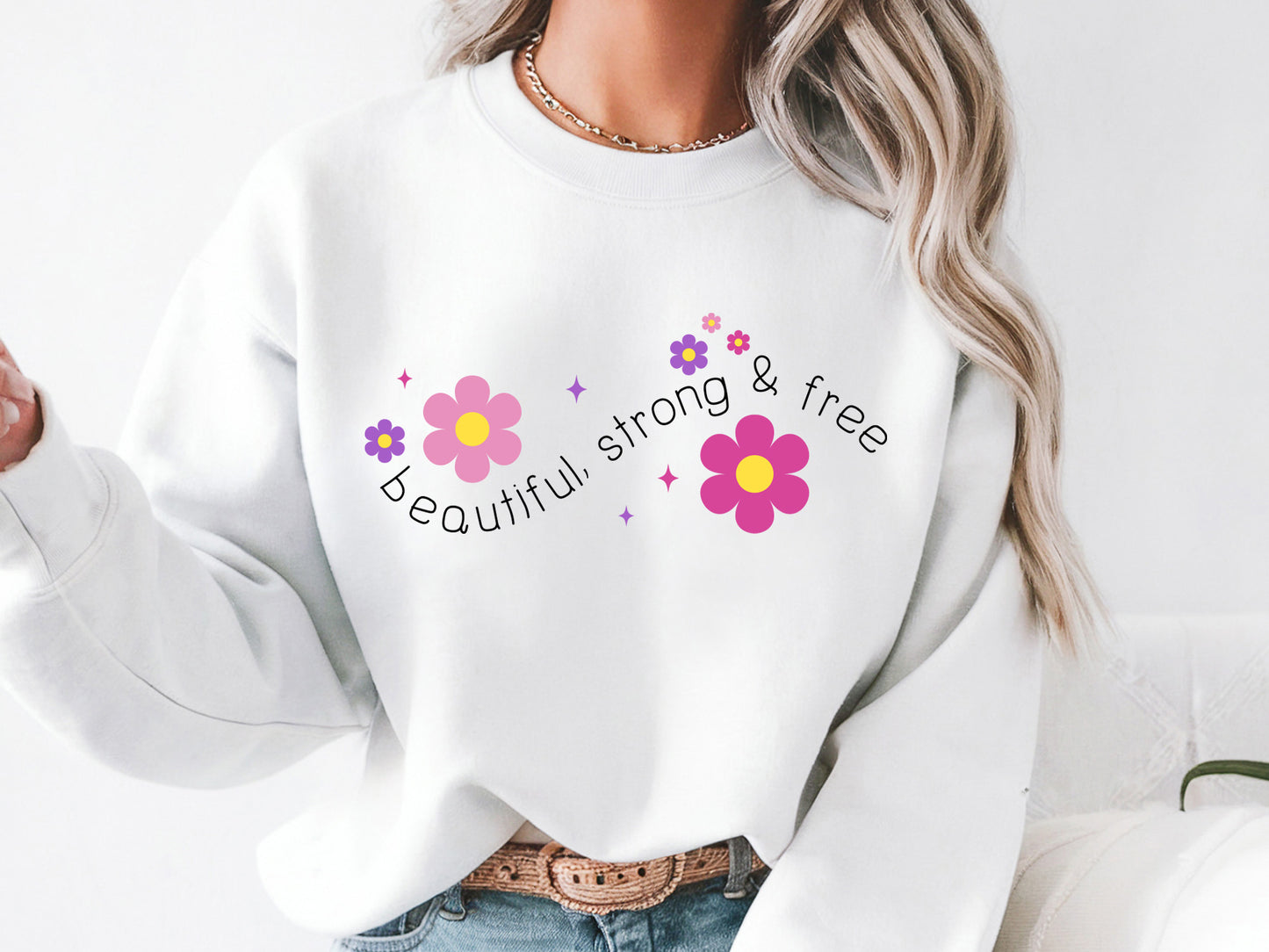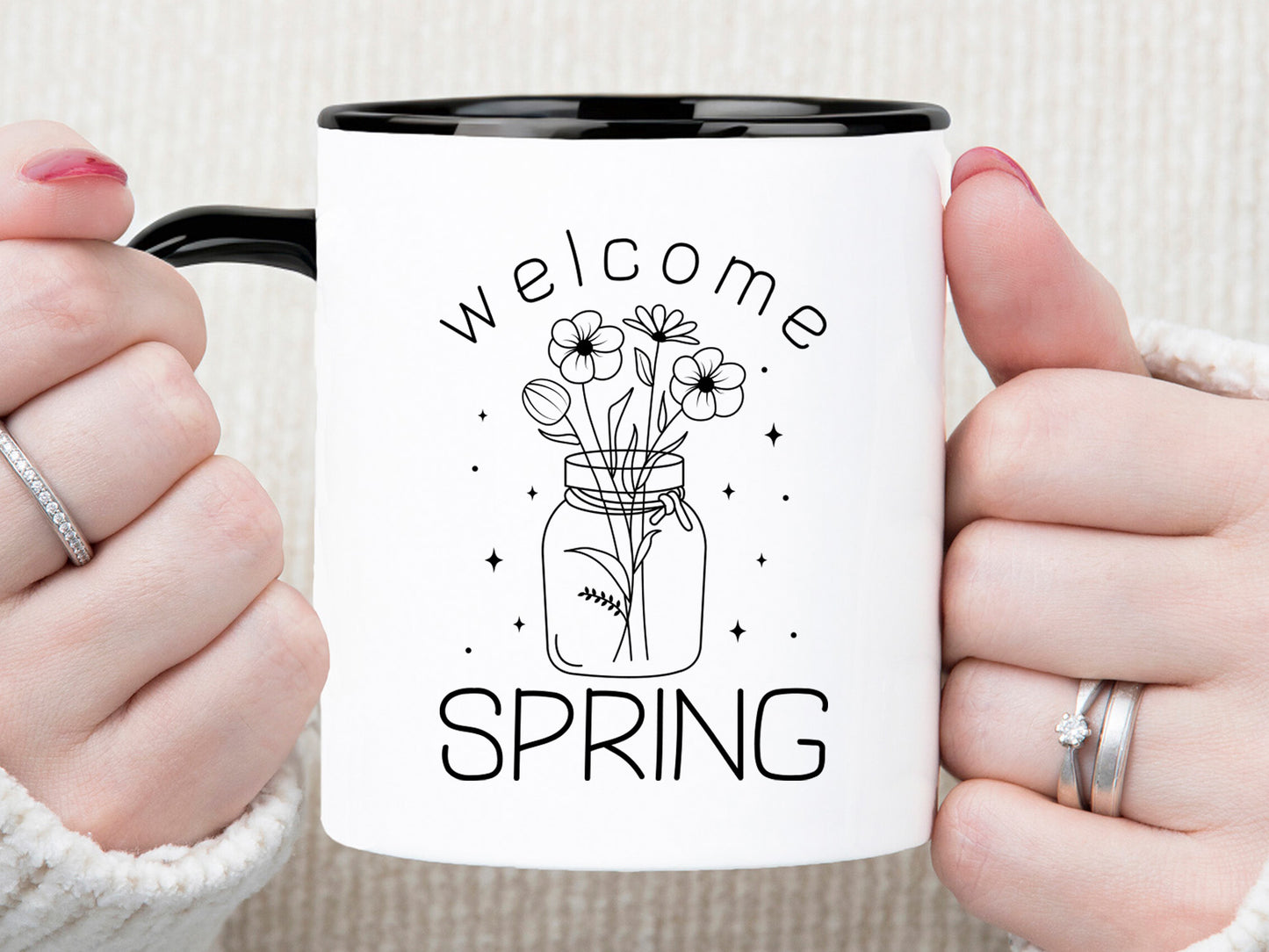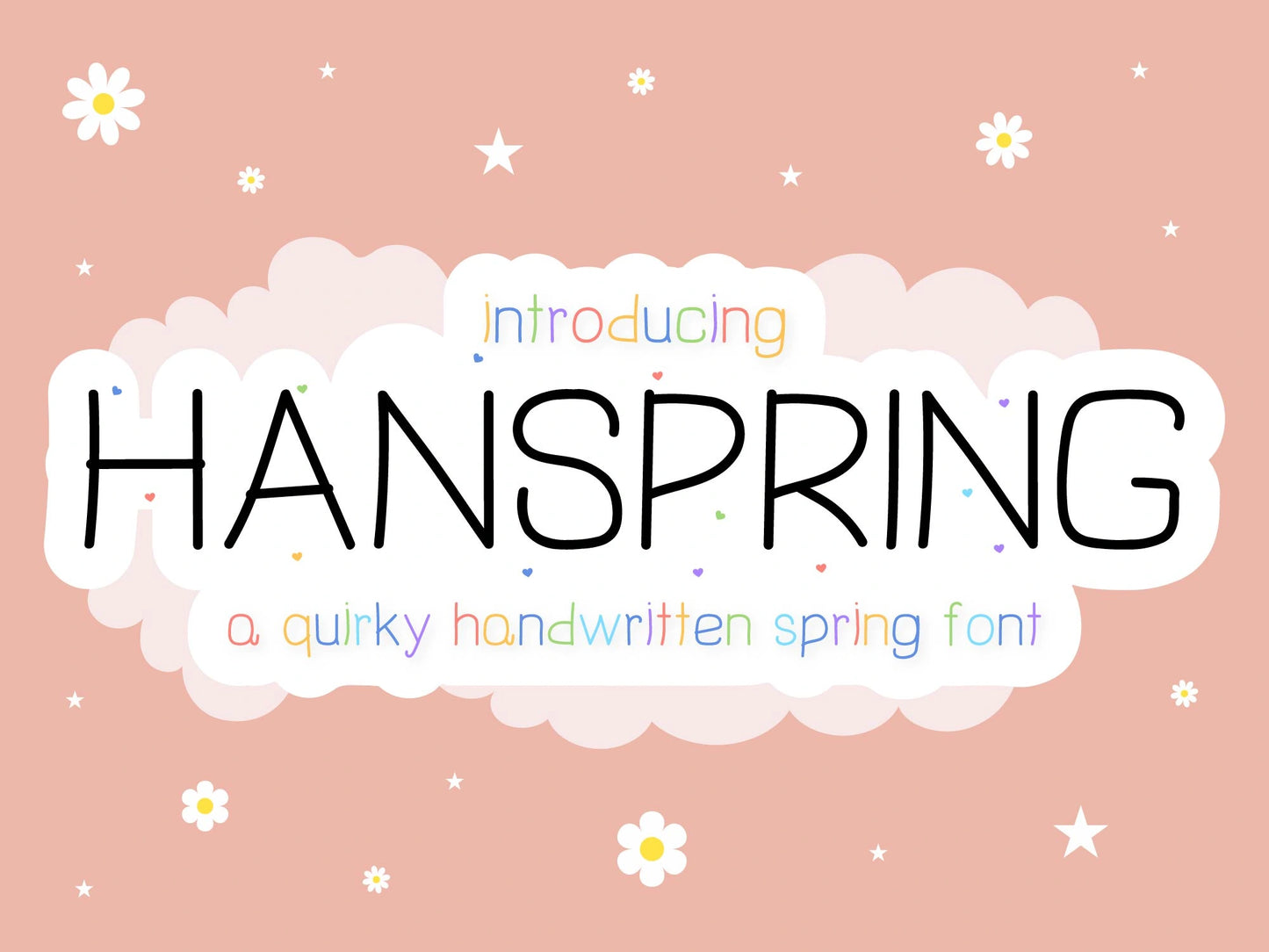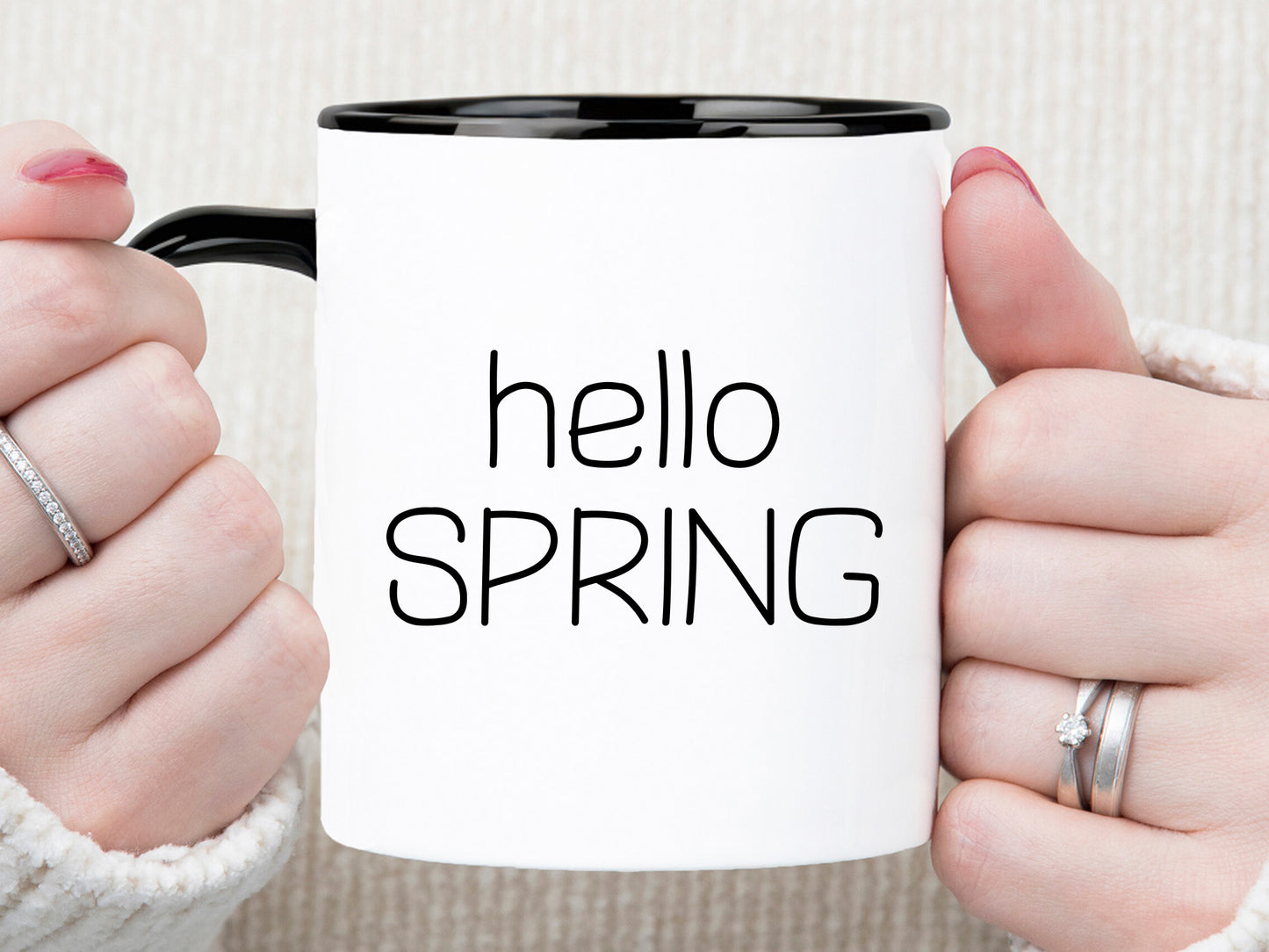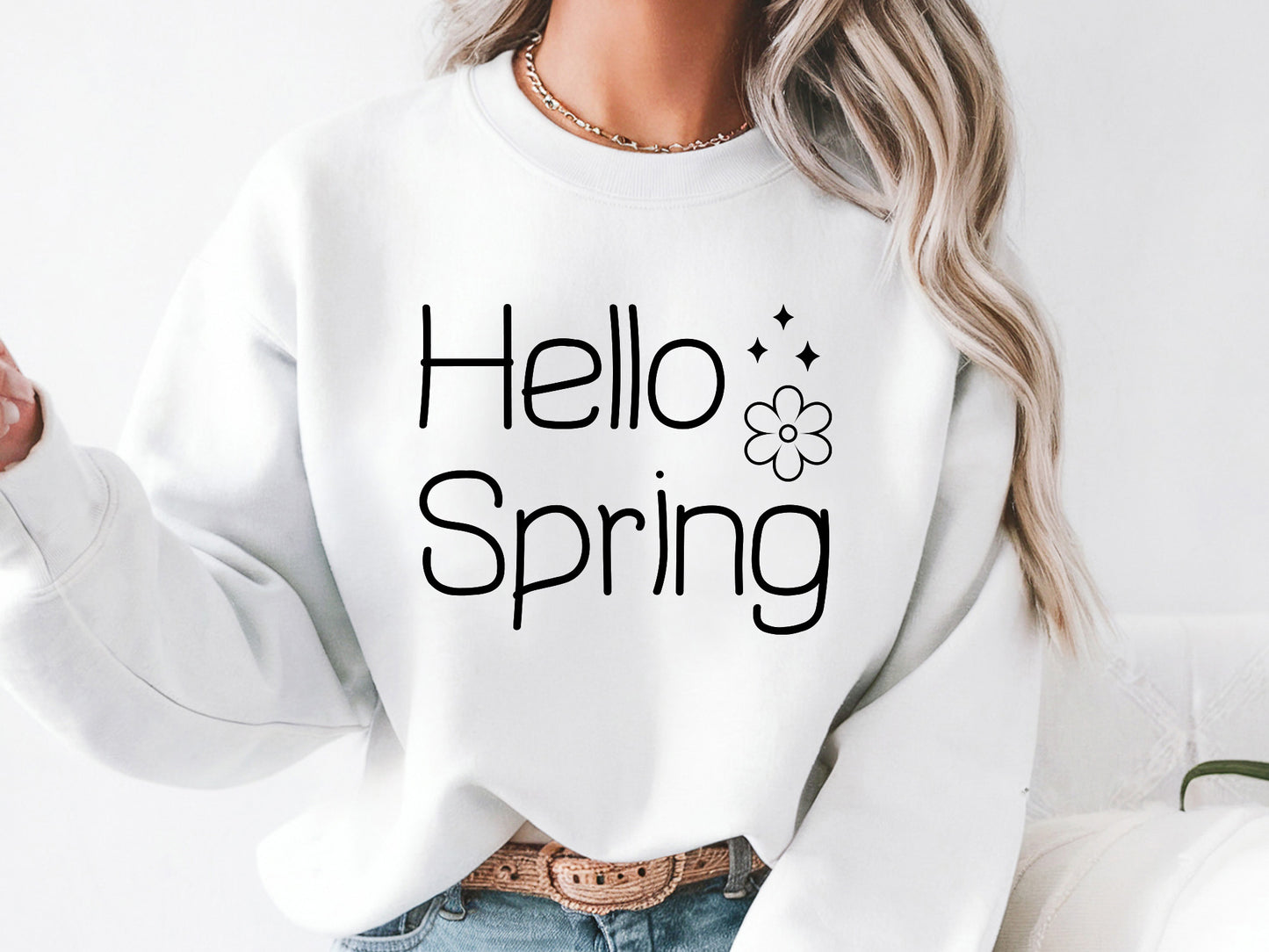
Hanspring - A Quirky Handwritten Spring Font
Hanspring is a lovely, quirky handwritten Spring font! This playful typeface is perfect for adding a touch of charm to your next spring crafts, Easter designs, and seasonal DIY projects. With its playful, hand-drawn style, Hanspring is perfect for greeting cards, sublimation prints, invitations, t-shirts, mugs, and more. Its natural, flowing appearance brings warmth and character to your creations. Whether you’re designing spring-themed SVGs, farmhouse-style prints, or hand-lettered quotes, this quirky font is a unique addition to your design toolkit. The Hanspring font is available in OTF and TTF formats, making it compatible with various design programs like Cricut, Silhouette, Canva, and Photoshop. Download now!